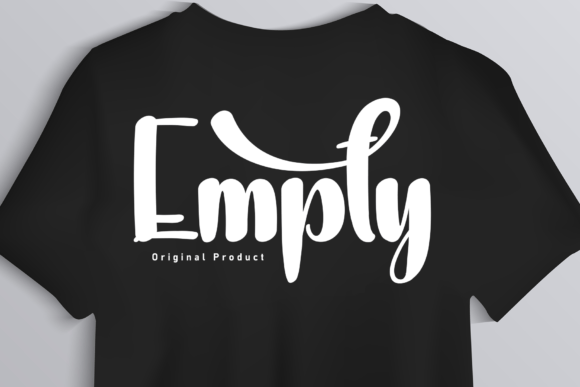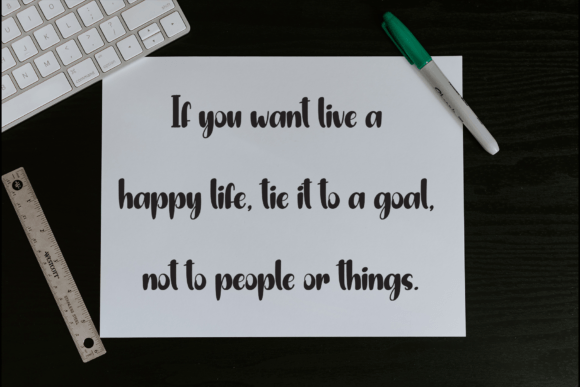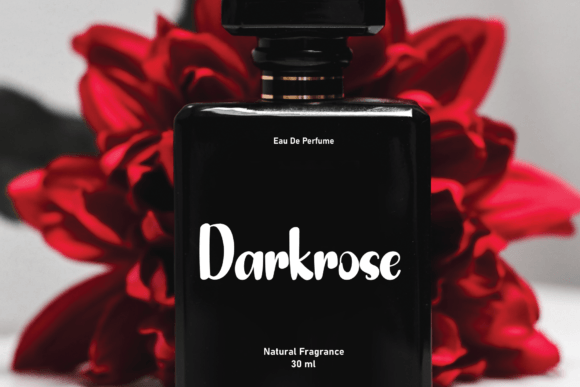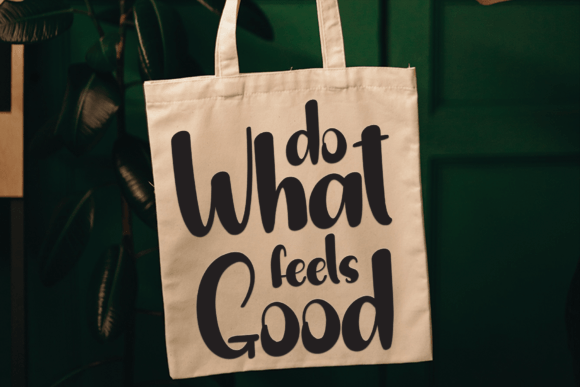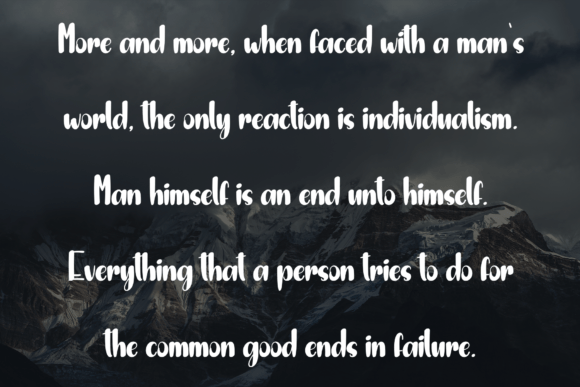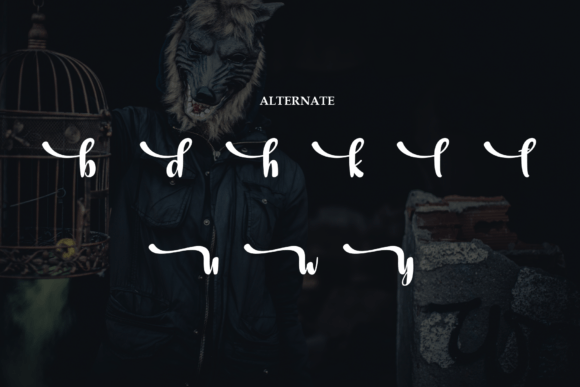
The Sweet and Friendly Animals Creepy Font: A Designer’s Delight
I still remember the time I was working on a wedding invitation project, and I just couldn’t find the right font to give it that personal touch. My client wanted something that was both cute and elegant, but I was coming up blank. That’s when I stumbled upon the Animals Creepy Font, and it instantly became my go-to choice. In this article, I’ll share my experience with this lovely font, its features, and how to make the most of it in your designs.
So, what makes Animals Creepy Font so special? Here are a few things I love about it:
- ✨ Sweet and Friendly Vibe: This font exudes a warm and welcoming feel, making it perfect for projects that require a personal touch.
- ✅ Cute and Fun: The font’s playful nature makes it ideal for designs that need a bit of whimsy, such as wedding invitations, greeting cards, or children’s party materials.
- 💕 Handwritten Display Font: Its handwritten style gives it a unique, human touch that sets it apart from more formal fonts.
- 🤔 Limited Use in Formal Designs: While Animals Creepy Font is amazing for informal projects, it might not be the best choice for more formal designs, such as business reports or corporate branding.
- ⚠️ Legibility at Small Sizes: Like many handwritten fonts, it may become less legible at very small sizes, so it’s best used at larger sizes where its charm can shine.
The Story Behind Animals Creepy Font
The creator of Animals Creepy Font, a passionate typographer, was inspired by the joy and playfulness found in children’s drawings and handwritten notes. Their goal was to craft a font that would bring a smile to people’s faces and make designs feel more approachable and friendly. Through meticulous design and attention to detail, Animals Creepy Font was born — a font that embodies warmth, whimsy, and a touch of sweetness.
Q: What makes Animals Creepy Font unique?
A: Its sweet and friendly vibe, combined with a handwritten display style, makes it perfect for adding a personal touch to designs.
Q: Is Animals Creepy Font difficult to read at small sizes?
A: Like many handwritten fonts, it may become less legible at very small sizes. It’s best used at larger sizes to ensure readability and to showcase its charm.